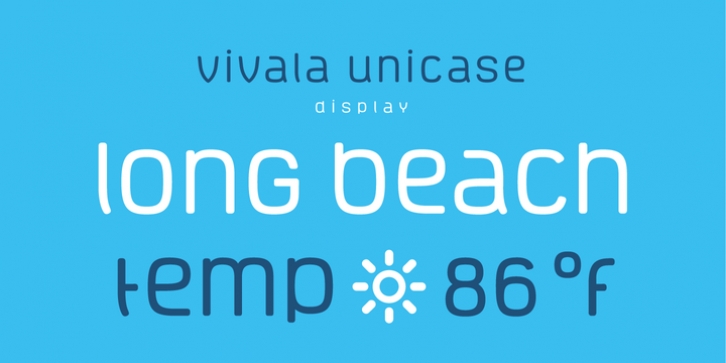
This square sans is suitable for a small line feed. The spaces between characters are wide enough to be readable even in small sizes. The numerals are slightly narrow.